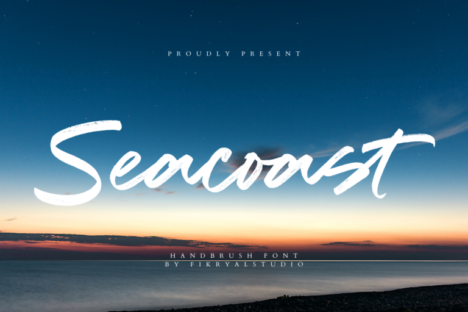
- Seacoast – Hand brush Font
Seacoast
Seacoast – Is a Hand brush Script Font. This font is made in a modern style, casual, strong, elegant, and suitable for your various design needs. it’s perfect for logo, branding, title, social media posts, advertisements, product packaging, product designs, label, photography, watermark, special event, magazine, web font, visual identity, corporate branding, brand identity, tags, etc.